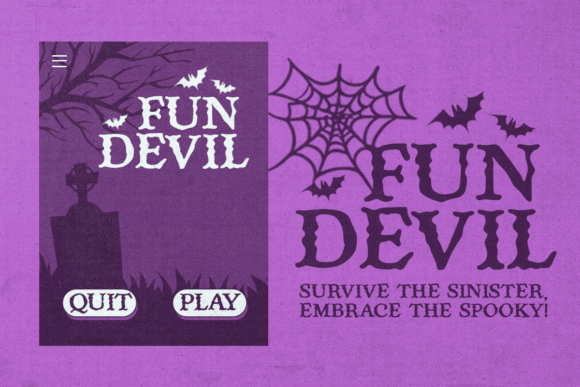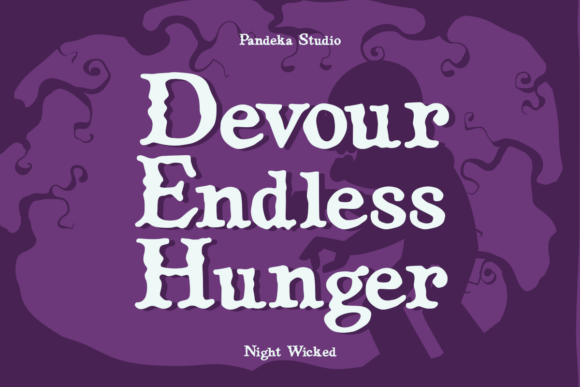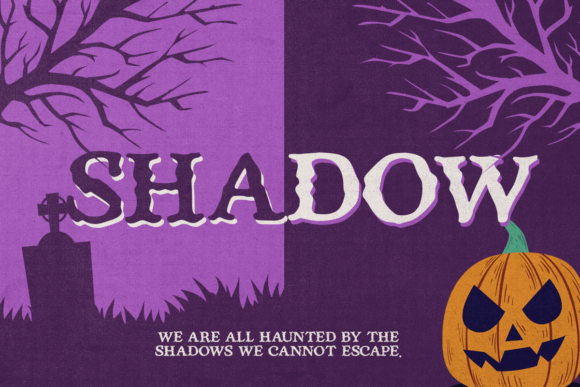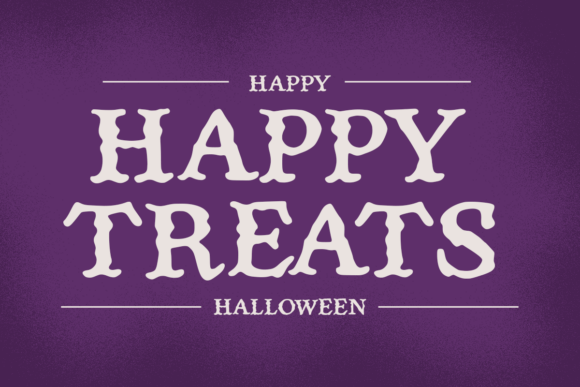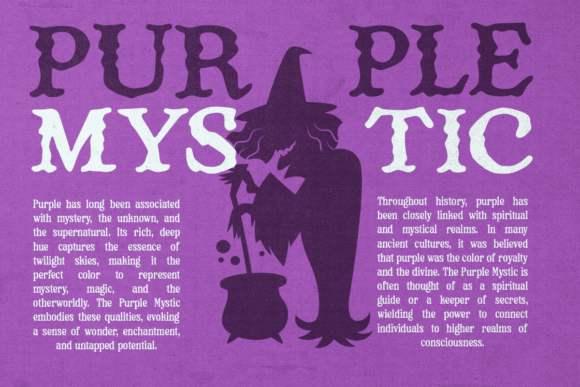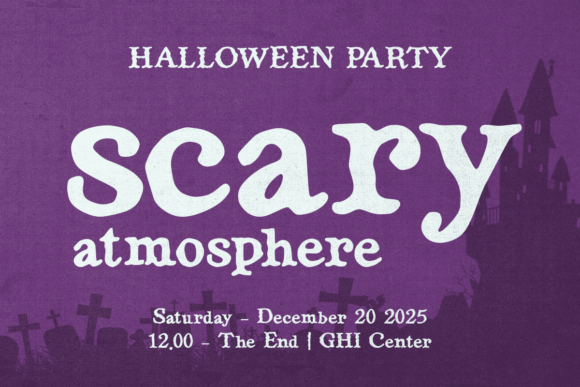
Introduction to Night Wicked Font
Night Wicked is a Halloween-inspired typeface with creepy, hand-drawn lettering that enhances eerie and haunted designs.
Perfect for spooky posters, horror movie titles, eerie invitations, haunted house flyers, gothic branding, and seasonal merchandise, this font brings a chilling, unique aesthetic to any horror-themed project .